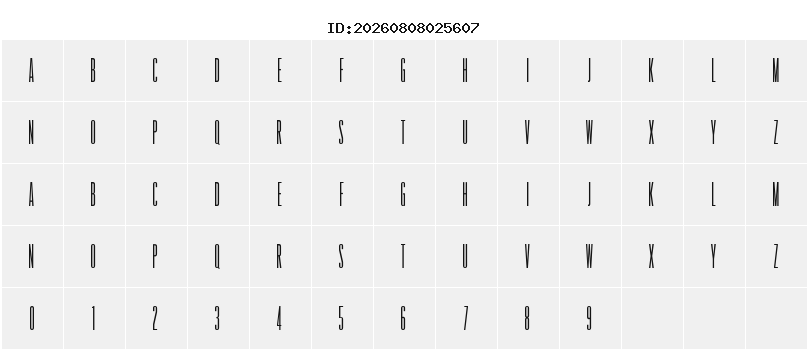
• Font Name: Promenade de la Croisette
• Designer: HENRIavecunK
• Description: Promenade de la Croisette Regular is a font designed by HENRIavecunK in 2016.
Promenade de la Croisette.ttf is a modern, elegant sans-serif font designed for ultimate readability and visual harmony. Perfect for branding, headlines, web design, and print materials.